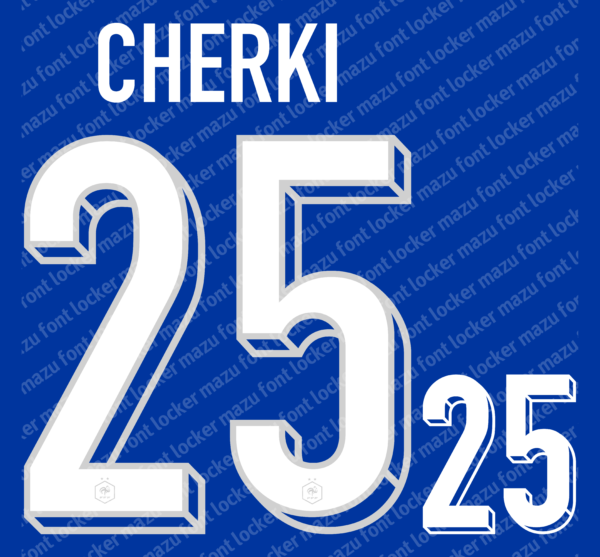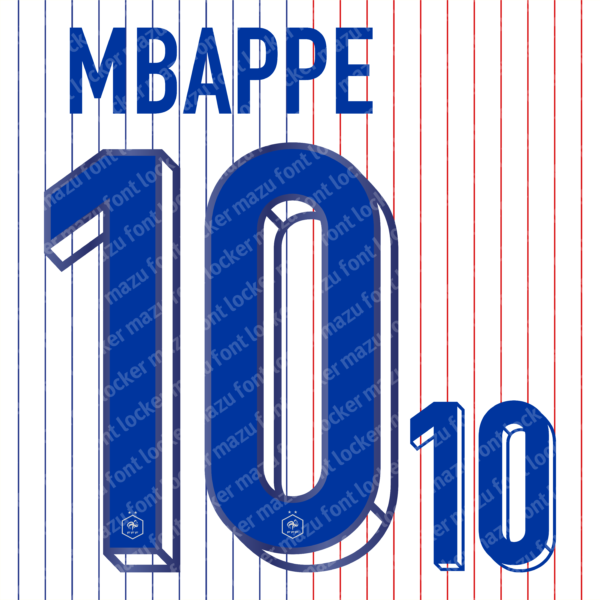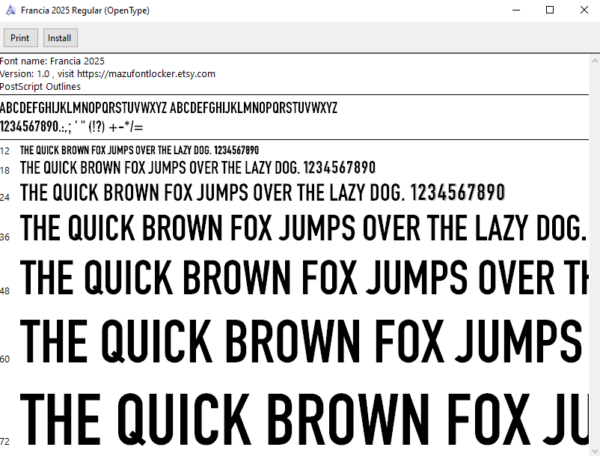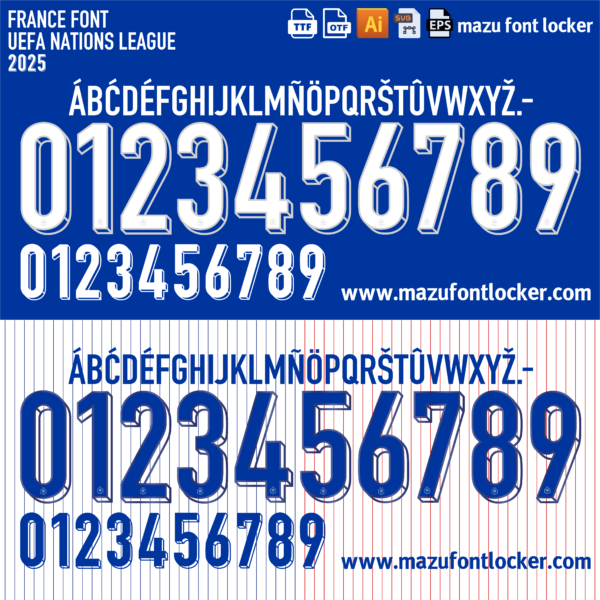
France 2025 Font Vector – Elegant Les Bleus Power
France 2025 Font is a high-quality football jersey font vector designed to replicate the official lettering and numbering style used during the France 2025 season. This France 2025 font is perfect for designers, football fans, and creators who want accurate and professional jersey customisation.
Inspired by the official kit of France, this France 2025 font delivers a clean and authentic match-day appearance. Every letter and number has been carefully recreated to match the real jersey design, ensuring your projects look realistic and professional.
France 2025 Font Vector – Authentic Jersey Lettering
France 2025 font is a high-quality football jersey font vector created to replicate the official lettering and numbering style used during the iconic France 2025 Year. Perfect for designers, football fans, and jersey customisation projects, this font set delivers an authentic and professional match-day appearance.
Inspired by the original Italy national team kit, every letter and number has been carefully recreated to ensure accurate retro styling for both digital and print projects.
• Authentic 2025 France jersey lettering style
The authentic lettering style helps recreate the classic look of the France 2025 kit with professional accuracy.
Unlike generic jersey fonts, this set is designed with a strong focus on authenticity and accuracy. Every detail is based on the original match lettering style used during the France 2025 Year, helping designers and collectors create realistic football shirt designs.
This France 2025 font vector set is designed for authentic football jersey customization and works perfectly for retro football projects, collector designs, and professional sportswear artwork.